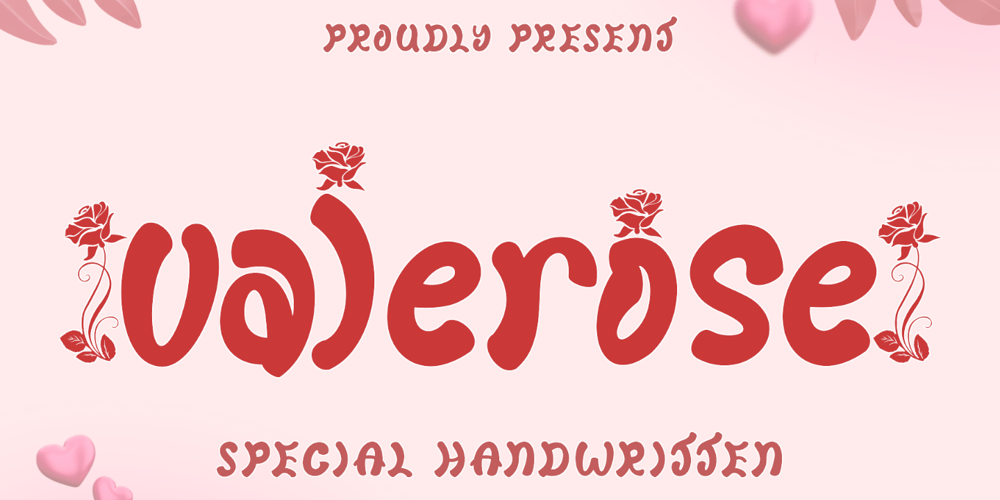
Valerose Font Family was designed by Selvia Cahya and published by Selvia Design. Valerose contains 1 styles and family package options. “Valerose” is a very unique and elegant handwritten display font. This font is decorated with roses in alternate letters. Uppercase, lowercase, swashes, titling, uppercase alternates, multilingual support, numerals, and punctuation are all included. Ideal for logos, weddings, valentines, and other occasions.